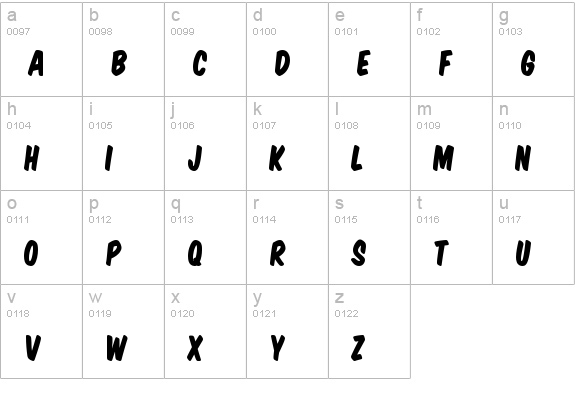
Komika Title - Kaps is a bold and eye-catching display font that exudes a playful and energetic vibe. With its unique geometric shapes and exaggerated strokes, this font is perfect for making a statement in headlines, posters, logos, and more. The distinct style of Komika Title - Kaps will surely grab the attention of viewers and add a touch of fun to any project. The best part? Komika Title - Kaps is completely free to download at FontsMarket.com! Don't miss out on this fantastic opportunity to enhance your designs with a standout font that will elevate your creativity to new heights. Download Komika Title - Kaps today and let your imagination run wild!